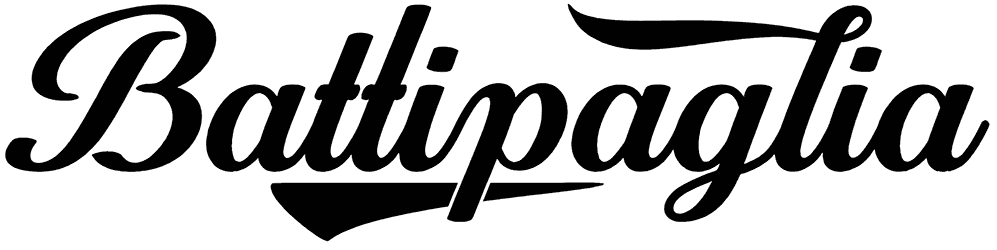
Battipaglia Font
Don’t let it ever stop being fun to interact with your audience with so many different swirly fonts to choose from, Resource Boy, including Battipaglia. This font can be one of your best shots at adding visual uniqueness to your writing without messing with the readability.
You’ll find this baseball font quite useful for various sports projects, as well as skateboards, cool streetwear items, or when you want to bring a nice summer touch to your retro typography designs.
Battipaglia Font by Ahmad Rofingi